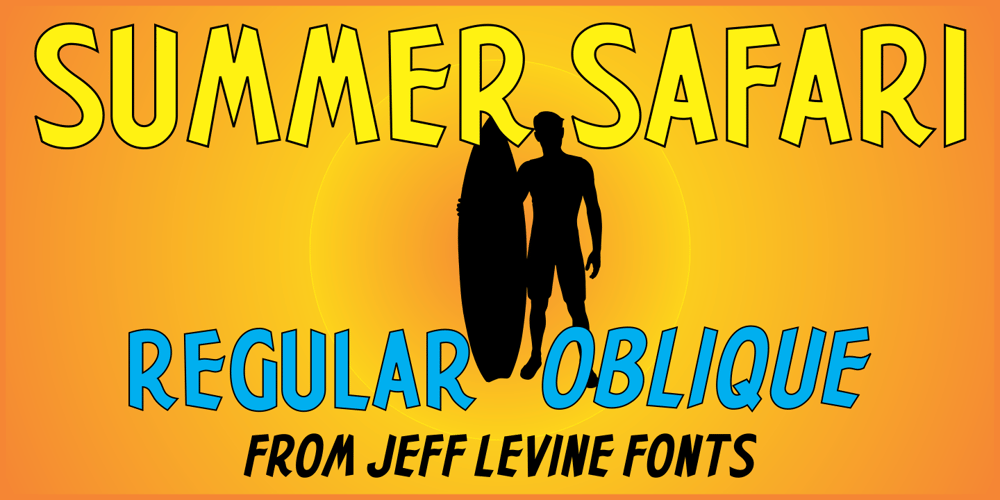
Summer Safari JNL Font Family was designed by Jeff Levine and published by Jeff Levine. Summer Safari JNL contains 2 styles and family package options. Inspired by an image of a 1960s rock and roll concert poster for “The Beach Boys Summer Safari”, this typeface captures the casual, informal lettering of the main headline and makes it available digitally.Evoking sunny days of fast cars, pretty girls and riding the waves, the playfully hand lettered Summer Safari JNL is available in both regular and oblique versions.